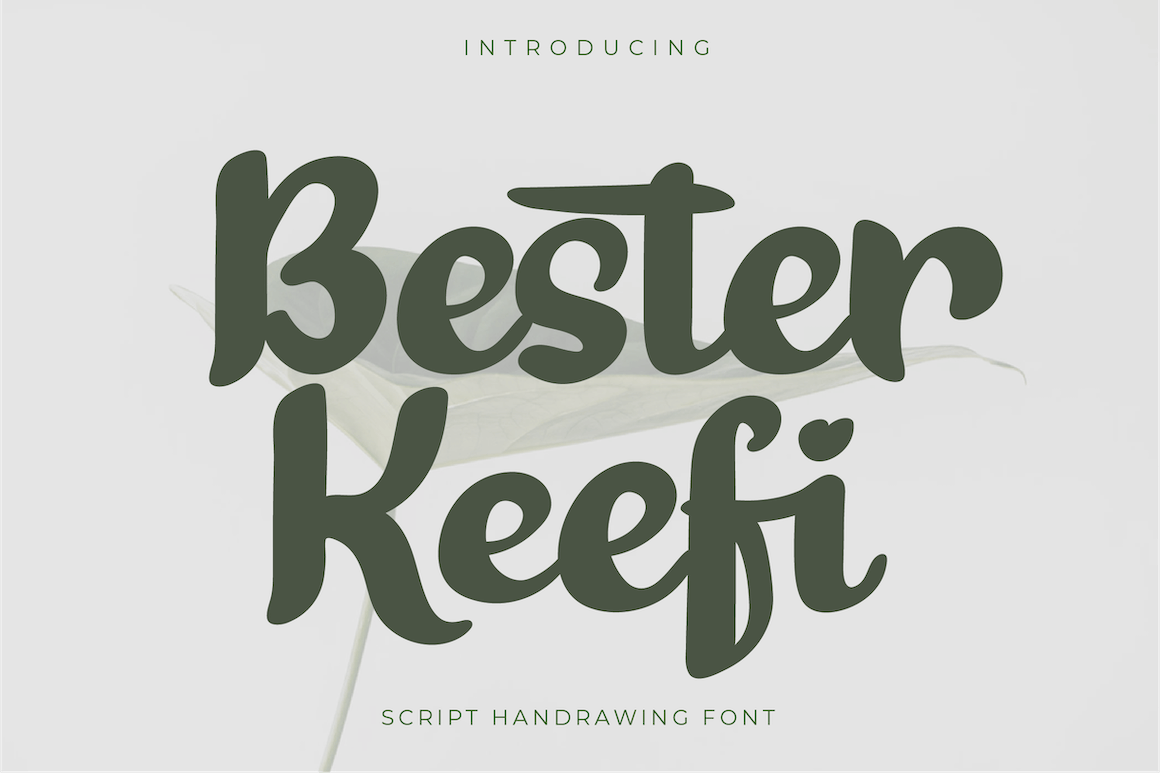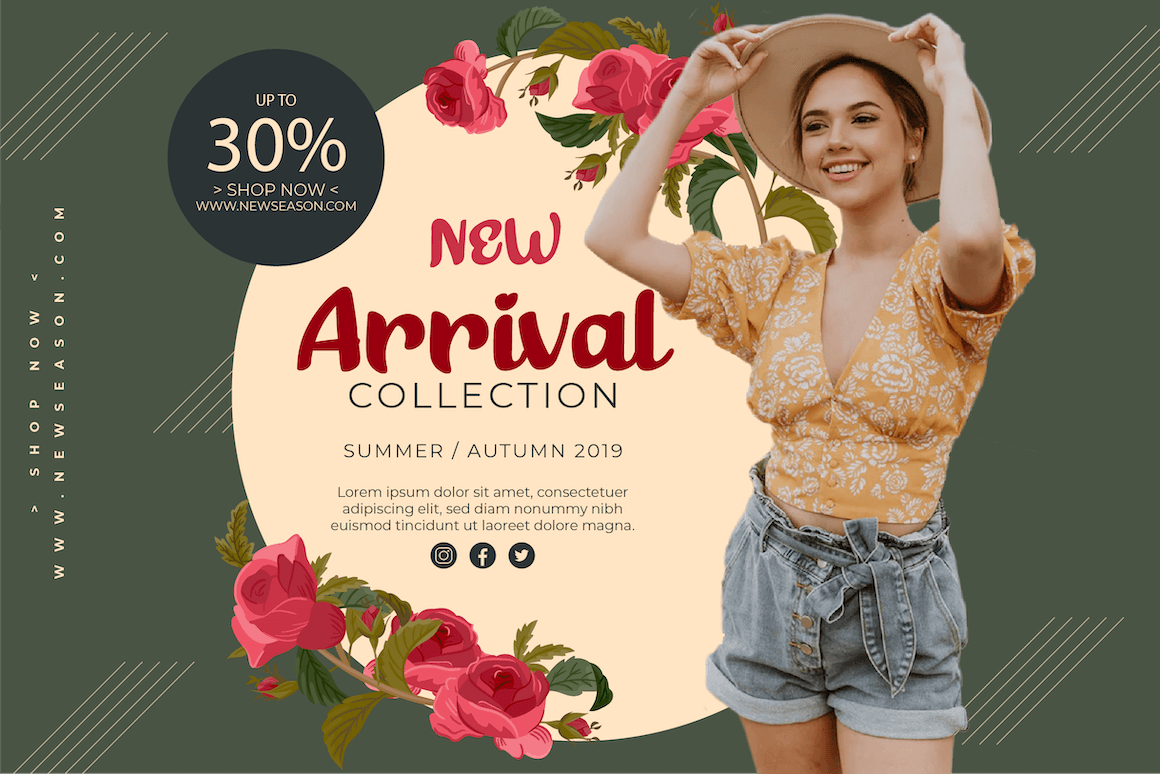
Bester Keefi
Bester Keefi results out of a stunning pairing of a brush pen and pencil that makes it look incredibly endearing and authentic. Use this gorgeous and unique handwritten font to bring any DIY project to life!
This font is designed with a natural touch of handwriting which is refined to create a portion and composition that suits your needs. So this font is suitable for craft, children’s writing, adventure posters, food banner titles, wedding invitations, product packaging logos, quotes, social media page covers, furniture banner headlines, book covers, and much more.